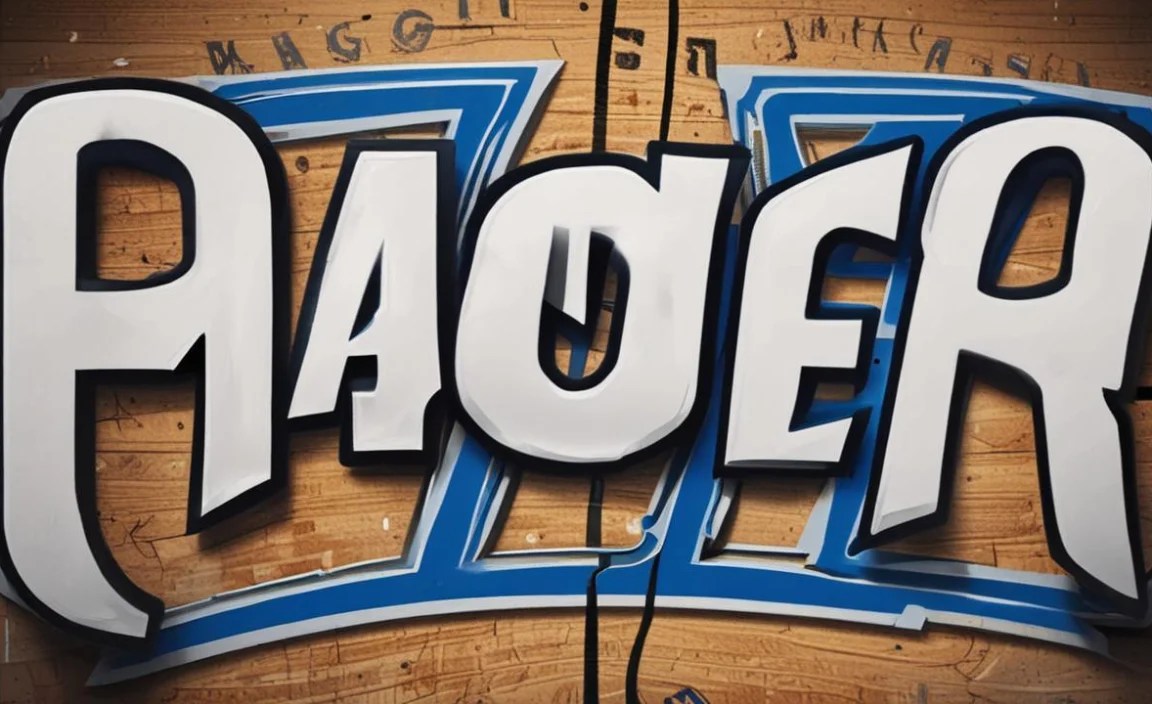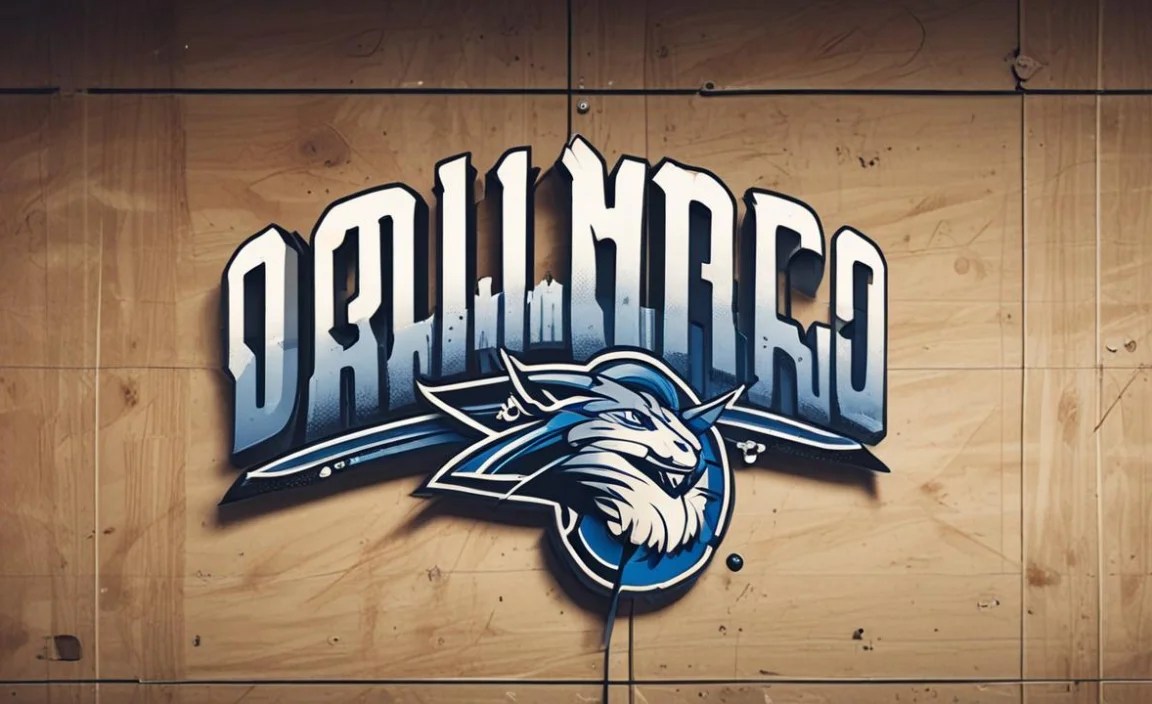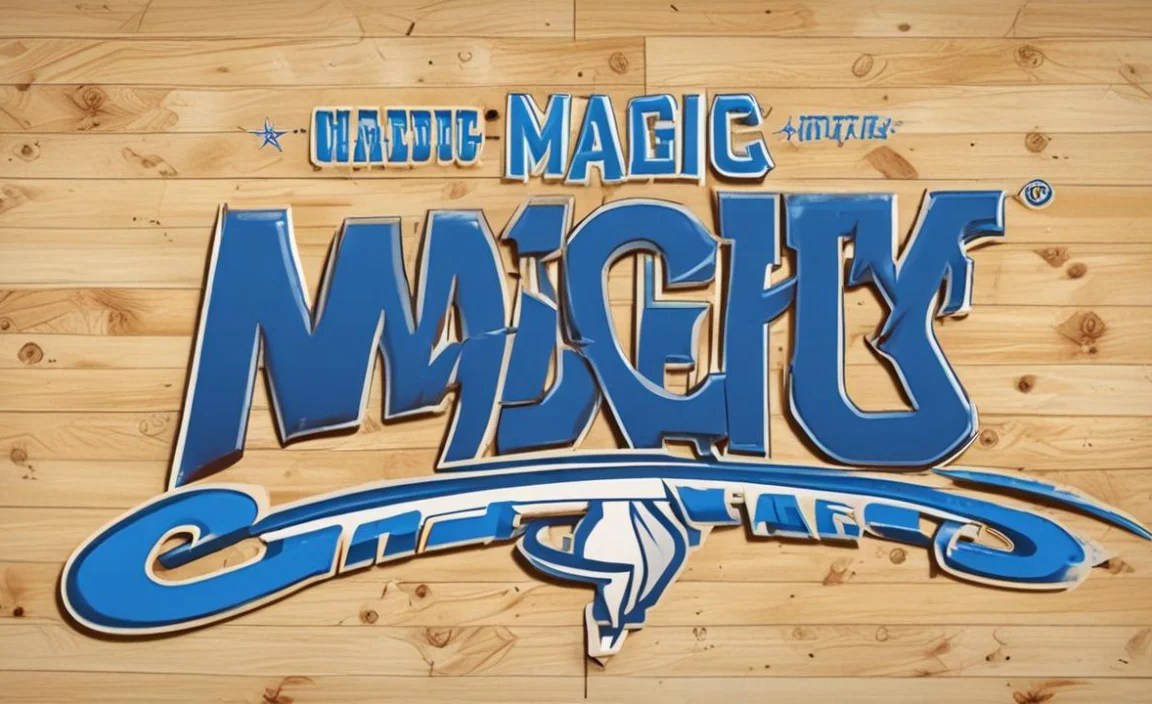
The Orlando Magic font is a distinctive typeface that embodies the spirit of the Orlando Magic basketball team. Designed by Apostrophic Labs, this custom font was crafted to reflect the team’s dynamic energy and connection to its fans.
Released in conjunction with the team’s branding, the font plays a vital role in creating a cohesive identity for the franchise. The font is not only visually appealing but also represents the legacy of iconic players like Shaquille O’Neal, Tracy McGrady, and Dwight Howard.
Orlando Magic Font Information
| Name | Orlando Magic Font |
| Style | Custom |
| Designer | Apostrophic Labs |
| Type | Display |
Where “Orlando Magic Font” Is in Use
- Orlando Magic logo
- Merchandise
- Social media graphics
- Jersey design
- City edition jerseys
Best Font Pairing With Orlando Magic Font
When designing graphics for the Orlando Magic, it’s essential to choose font pairings that enhance the overall visual appeal and align with the team’s identity.
The Orlando Magic font, used in the Orlando Magic logo, has a dynamic style that reflects the energy of the team and its legendary players like Shaquille O’Neal, Grant Hill, Tracy McGrady, Dwight Howard, and Vince Carter. Here are some great font pairings that complement the Orlando Magic font effectively:
Oswald For Headings + Orlando Magic Font For Body Text
Use Oswald for headings to create bold, impactful titles. This sans-serif font captures attention, much like the silver star on the Orlando Magic logo. Pair it with the Orlando Magic font for body text to maintain the team’s branding in social media graphics, merchandise, and city edition jerseys. This pairing is excellent for designing jersey designs and fan merchandise.
Montserrat For Headings + Orlando Magic Font For Body Text
Montserrat has a modern and geometric feel that can resonate with the youthful energy of NBA Magic players. Using Montserrat for headings while maintaining the Orlando Magic font for body text creates a sleek look that is perfect for website design, especially on platforms discussing the latest news about the team or their performance at the Smoothie King Center.
Playfair Display For Headings + Orlando Magic Font For Body Text
For a more elegant approach, combine Playfair Display with the Orlando Magic font. Use Playfair Display for headings to introduce a sophisticated touch that matches the team’s history and legacy, which includes stars like Penny Hardaway and Pat Williams. The classic serif style of Playfair contrasts nicely with the modern shapes of the Orlando Magic font in detailed graphics.
Bebas Neue For Headings + Orlando Magic Font For Body Text
Bebas Neue is a strong, sans-serif font that works well for eye-catching headlines, such as announcing a magic return or celebrating significant moments in Orlando Magic history. This pairing is perfect for promotional materials and can be used alongside the Orlando Magic font for body text, ensuring clarity and brand consistency.
Lato For Headings + Orlando Magic Font For Body Text
Lato offers a clean and friendly appearance, making it suitable for social media graphics aimed at Magic fans. Using Lato for headings while keeping the Orlando Magic font for body text provides a balanced and approachable design, ideal for sharing updates and insights about players like Zion Williamson or highlights from the Tracy McGrady era.
The Orlando Magic font is an important part of the team’s identity. It connects to the team’s history and culture. Players like Shaquille O’Neal, Grant Hill, Tracy McGrady, and Dwight Howard have all worn the team’s jerseys.
The logo features a silver star and dynamic shapes, representing the magic of the game. The font is used in merchandise and social media graphics. As the team continues to grow, the Orlando Magic font remains a key part of its branding.
1.What Is The Orlando Magic Font?
It is a custom font used in the Orlando Magic logo.
2.Who Designed The Orlando Magic Font?
Apostrophic Labs designed the font.
4.What Teams Use A Similar Font?
The Miami Heat logo and Golden State Warriors logo have similar styles.